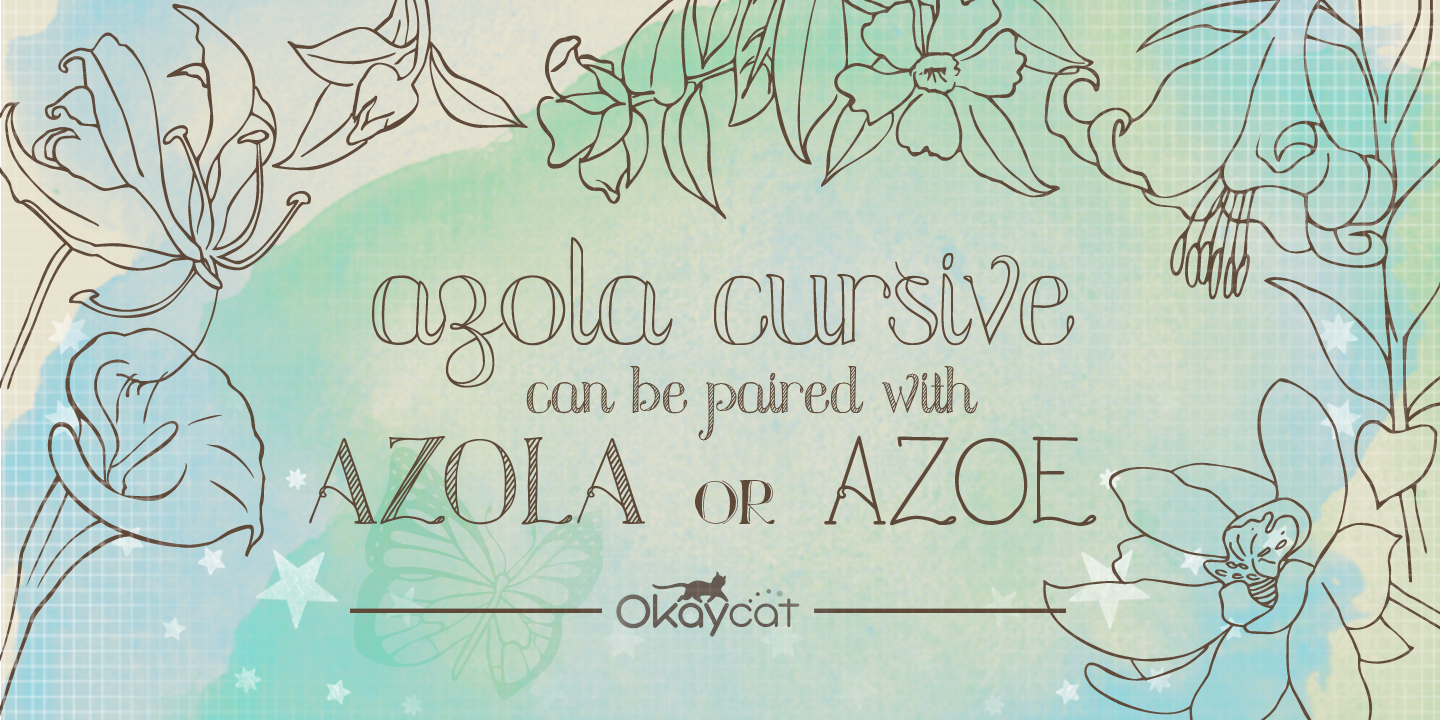
Azola Cursive Font is an exquisitely flowing and elegantly expressive typeface, perfectly suited for projects that demand a personal touch, artistic flair, and an undeniable sense of grace. Imagine it bringing a unique, handcrafted sophistication to wedding invitations, adding an authentic signature style to high-end product packaging, or gracing the covers of luxury lifestyle magazines and bespoke journals. It's also an excellent choice for crafting heartfelt greeting cards, designing distinctive logos that convey an artisanal quality, or infusing social media graphics and blog headers with a vibrant and inviting personality. If you're looking to convey authenticity, creativity, and a truly bespoke feel, Azola Cursive Font is an outstanding selection.
What makes Azola Cursive Font so exciting? It’s its unique ability to combine the natural spontaneity of genuine handwriting with the precision of digital design, resulting in a typeface that feels both intimately human and highly versatile. This font often features graceful connections, charming irregularities, and a lively flow that gives it an undeniable charisma and visual richness. Despite its decorative flair, Azola Cursive Font is meticulously designed to maintain excellent readability, ensuring your message is communicated beautifully and with an engaging, personal tone. Designers will appreciate its versatility in creating designs that feel both artistically expressive and professionally polished, making it a go-to choice for brands and projects that aim to connect with their audience through compelling visual storytelling.
The Azola Cursive Font family is typically designed to showcase a singular, beautifully crafted cursive style that perfectly embodies its unique appeal. While it may not feature extensive weight variations like a traditional text font, its strength lies in its inherent personality and often includes a rich set of stylistic alternates, ligatures, or swashes that enhance its handcrafted aesthetic. These subtle details allow Azola Cursive Font to maintain its cohesive and captivating look across various applications, from elegant endorsements to charming personal correspondence. Discover the authentic charm of Azola Cursive Font Free Download and infuse your designs with an unforgettable sense of artistry and individuality.